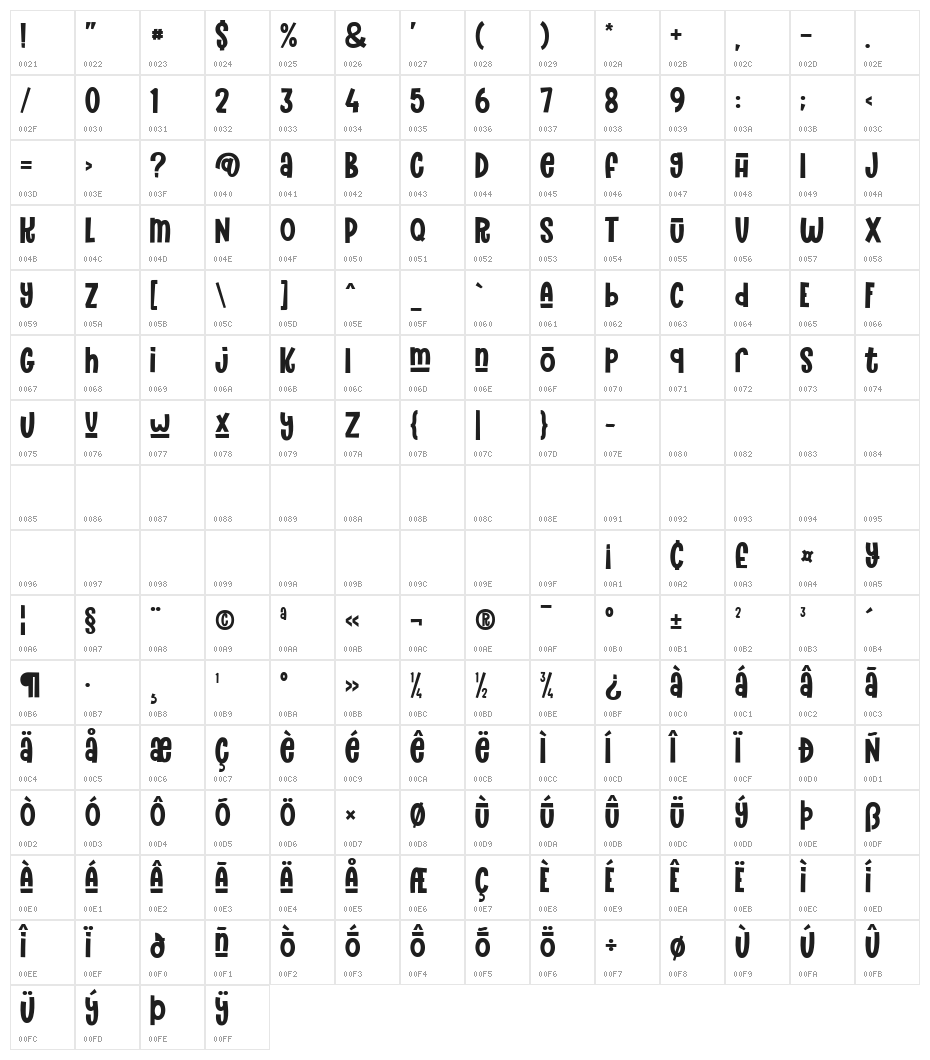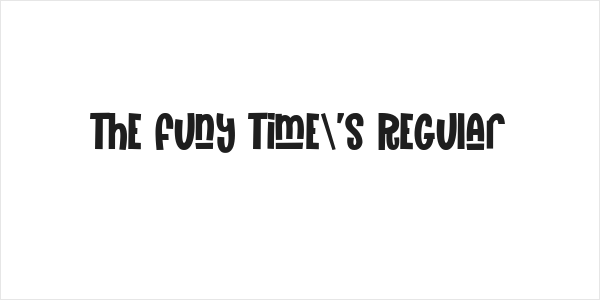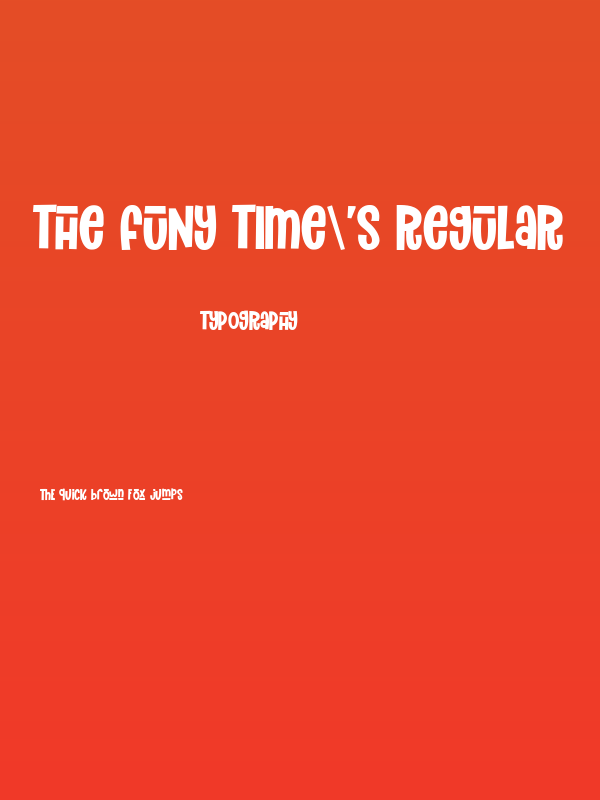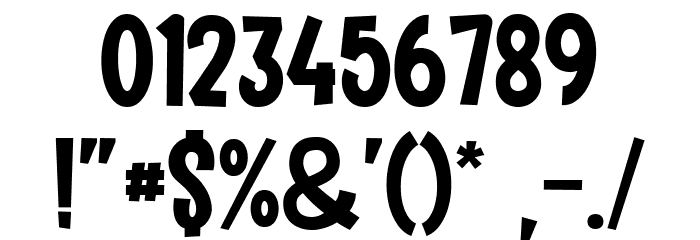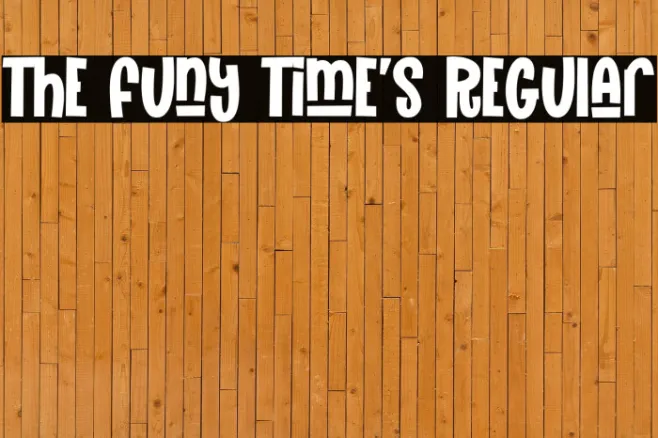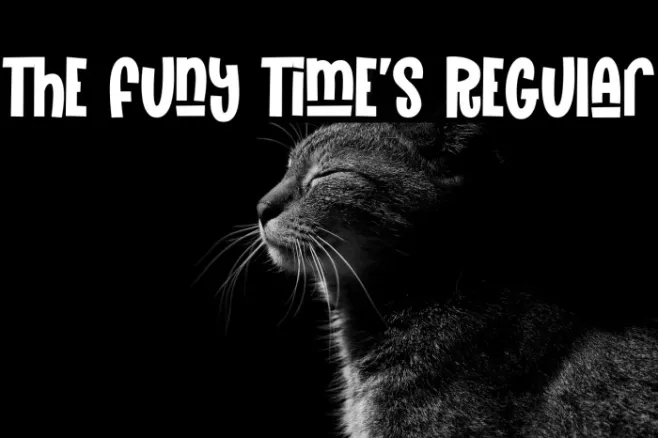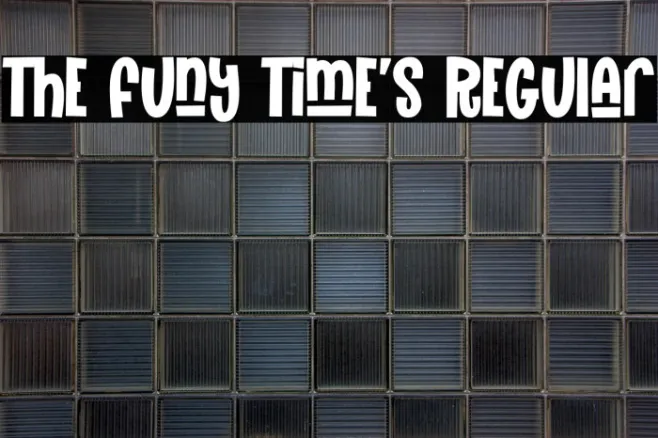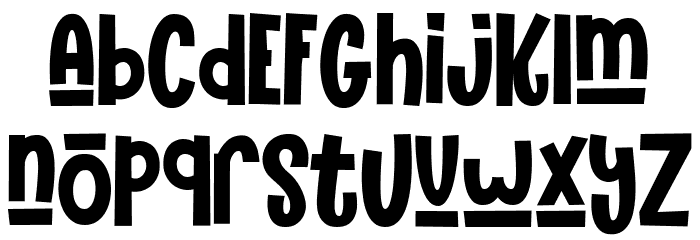
The Funy Time's Regular Font
The Funy Time's Regular Description
This playful and whimsical font features bold, rounded characters with a slightly irregular baseline, giving it a fun and informal appearance. The uppercase letters are tall and slightly narrow, while the lowercase letters maintain a consistent height with a quirky twist in their design. The numbers are bold and easy to read, matching the overall style of the alphabet. Special characters are creatively designed to fit the playful theme. The font's unique style makes it ideal for projects that require a lighthearted and engaging touch.
| Proposed Projects | Ideal for children's books, comic strips, playful branding, and party invitations. |